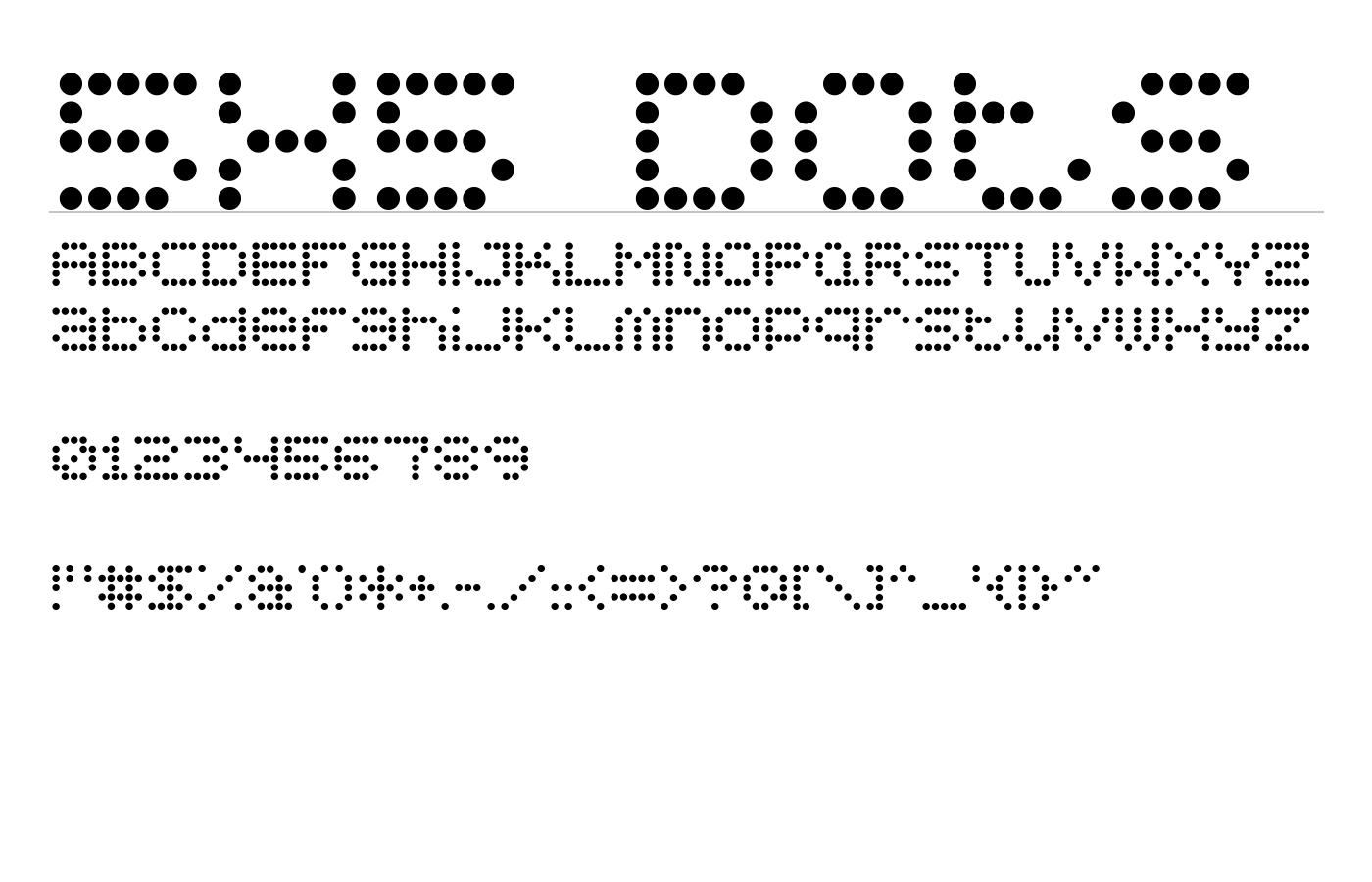
5x5 Dots Font is a modern, geometric sans serif typeface featuring a unique dotted grid structure that creates a digital, pixelated effect. Its lightweight and monospaced appearance, with consistent dot spacing and rounded forms, make it ideal for tech-inspired designs, digital displays, and creative branding that seeks a futuristic or minimalist vibe. This font works best for headlines, logos, and decorative purposes where a distinctive, tech-savvy look is desired.
5x5 Dots Font
About 5x5 Dots Font